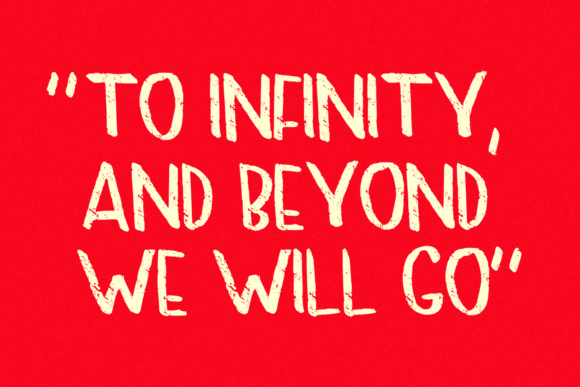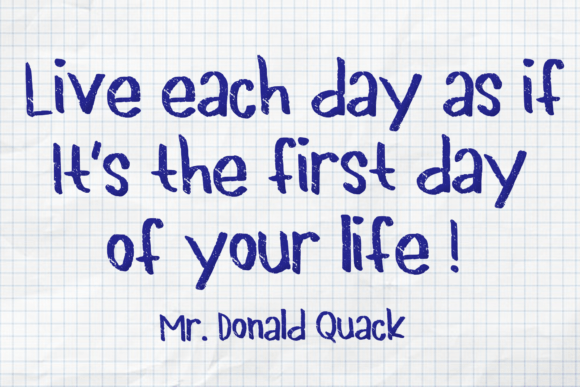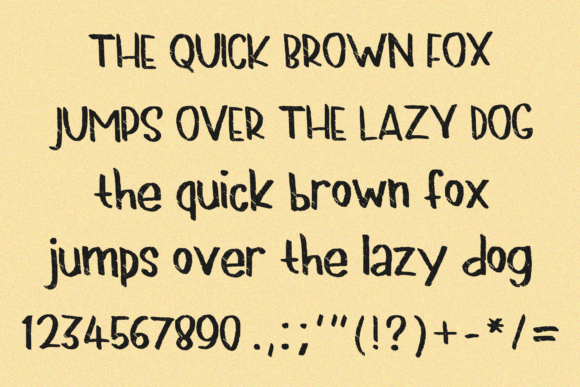
Introduction to Kids Write Books Font
Kids Write Books is a fun textured handwritten font for everything you need.
You can use it for anything ranging from t-shirts, comics, magazines, social media posts, greeting cards, stickers, posters, kid’s book designs, or anything that needs a casual touch Try it and create cool designs and feel the good vibes with it.
Key Features of Kids Write Books Font
Why Choose Kids Write Books Font?